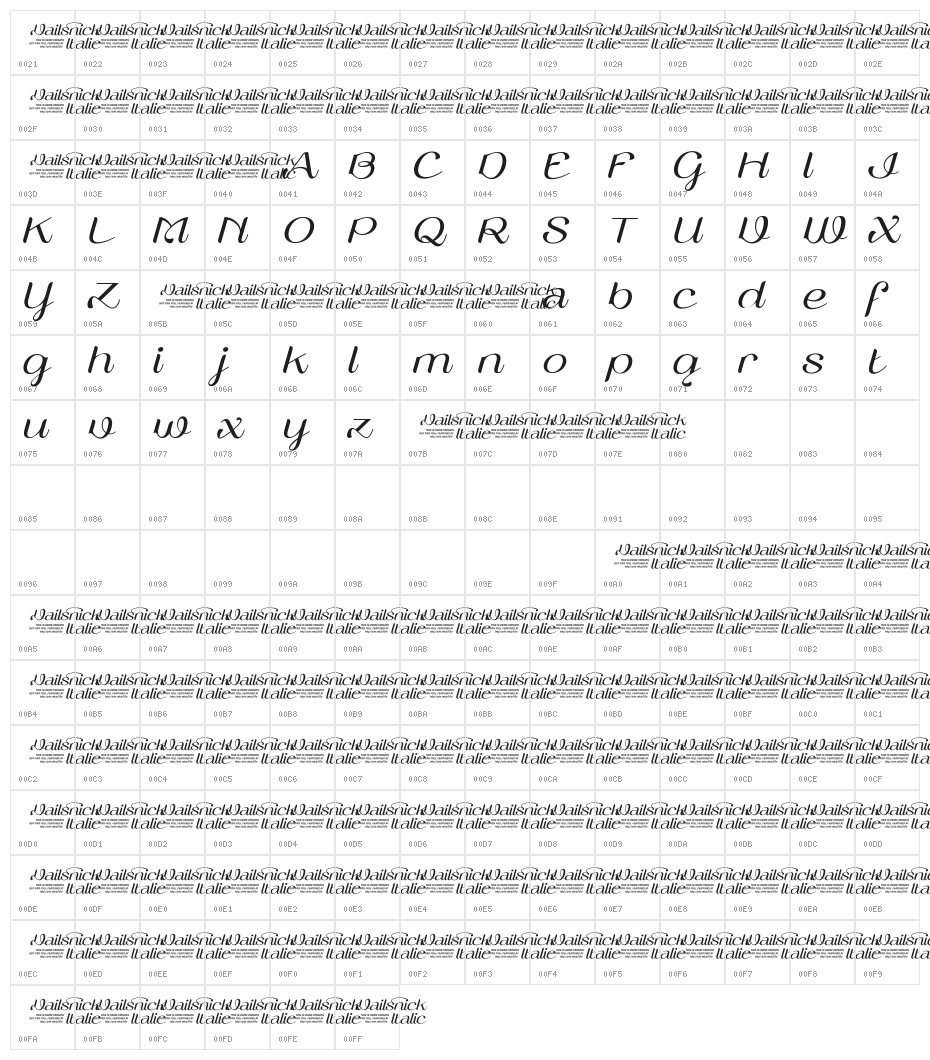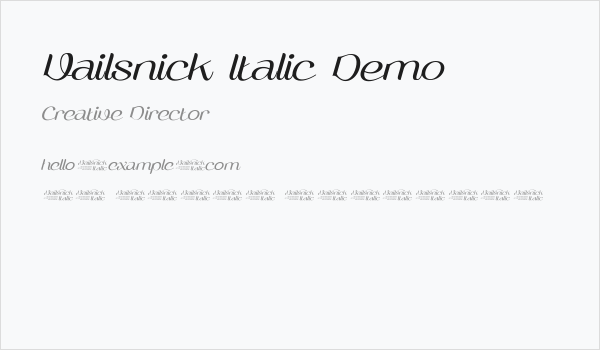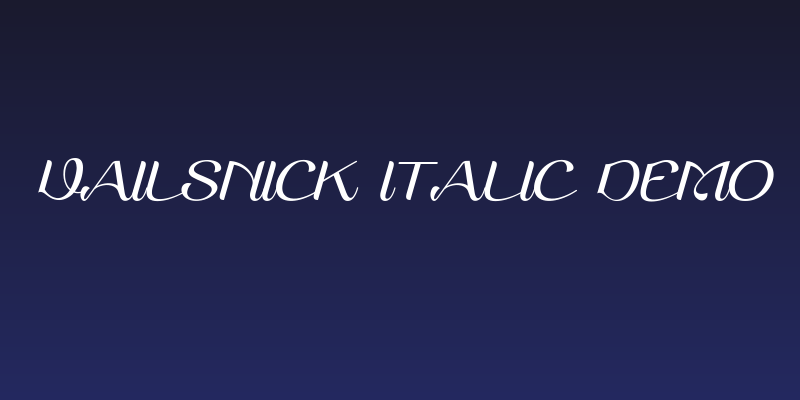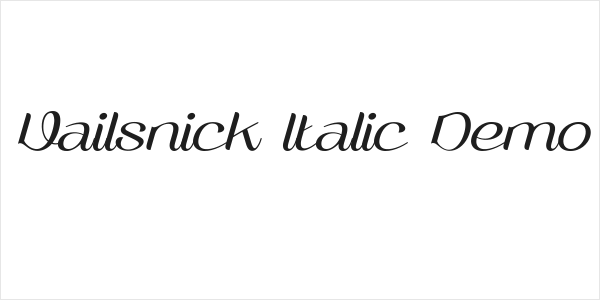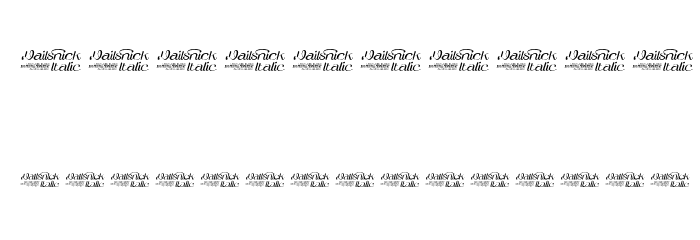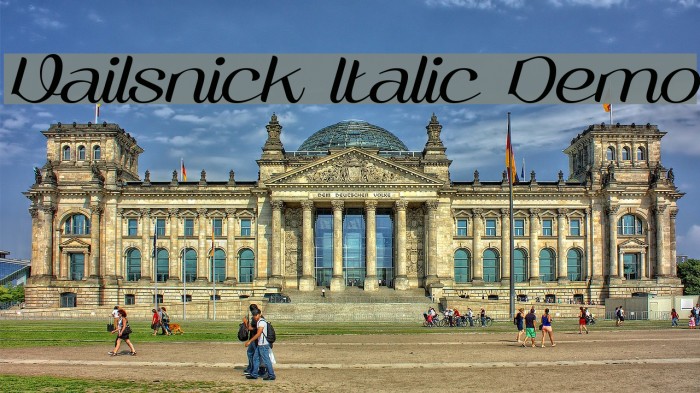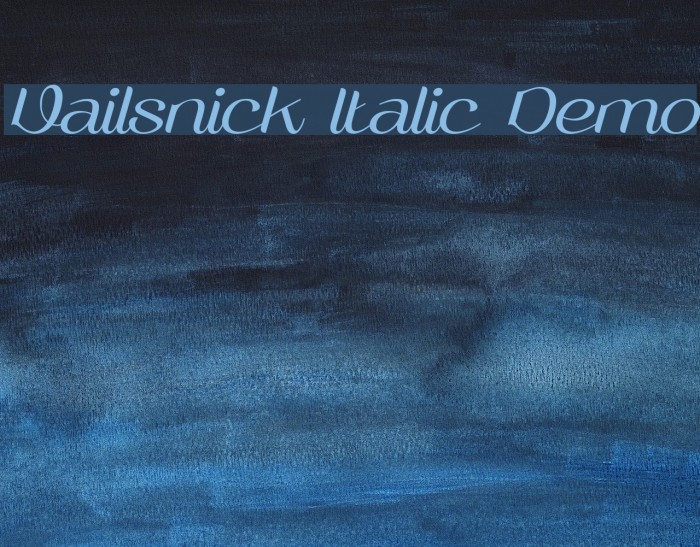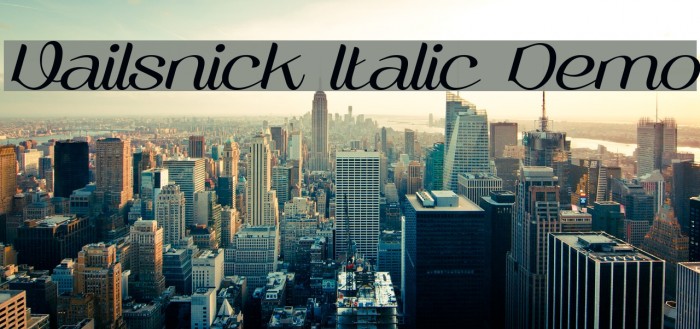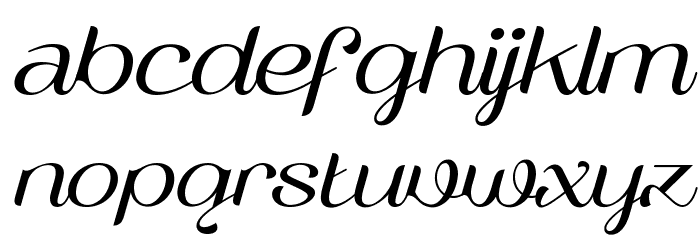
Vailsnick Italic Demo Font
Vailsnick Italic Demo Description
This font features an elegant and flowing script style, characterized by its smooth, cursive strokes and a slight slant that adds a sense of motion and grace. The uppercase letters are bold and prominent, with distinctive loops and curves that give them a sophisticated appearance. The lowercase letters maintain a consistent flow, with rounded edges and a harmonious balance between each character. The numerals are designed to match the overall aesthetic, with a similar slant and fluidity. Special characters are seamlessly integrated, maintaining the font's cohesive style. This font is ideal for projects that require a touch of elegance and refinement.
| Overall Style | Elegant |
| Use Case | Logos, Invitations, Decorative text |
| Proposed Projects | Wedding invitations, elegant branding, luxury product packaging, greeting cards, and decorative signage. |